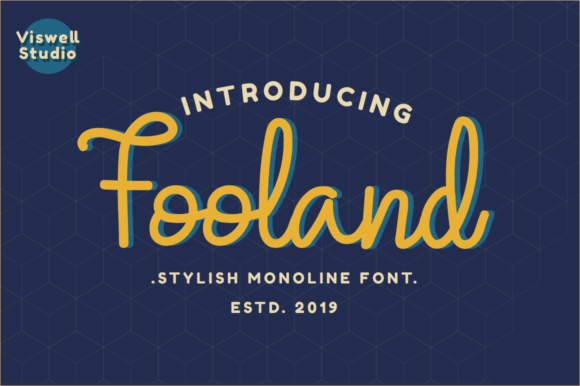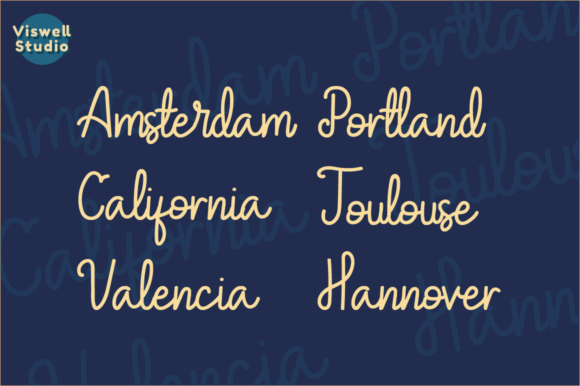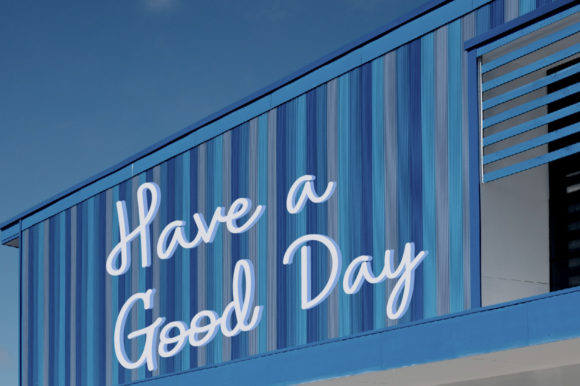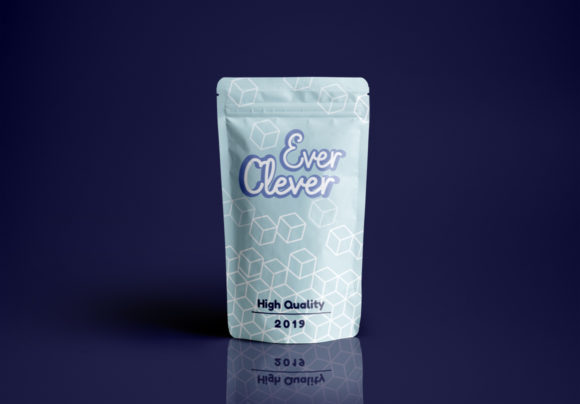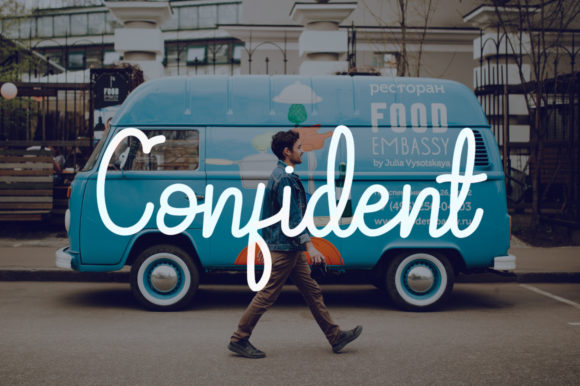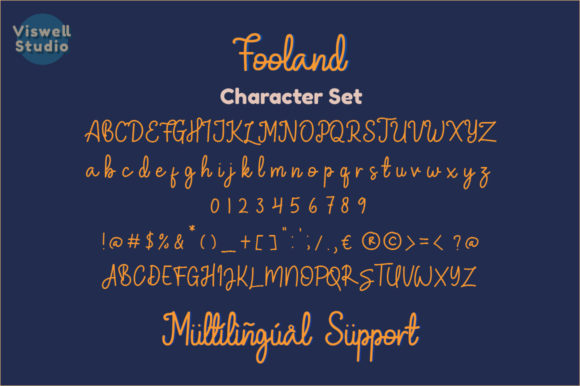
HomeScript FontsFooland Font Script Fonts Fooland Font FacebookXPinterestWhatsApp Fooland Font Poster 2 Fooland Font Poster 3 Fooland Font Poster 4 Fooland Font Poster 5 Fooland Font Poster 6 About Fooland Font Fooland is a beautiful monoline script font with friendly curves. Get motivated by its contemporary coolness! DOWNLOAD ON CREATIVE FABRICAThis font is sold and delivered by Creative Fabrica. Font Canyon may earn a commission if you buy through this link. People also explored Daylena Font Angelica Font Tangiang Font Gitoh Font Hello Rainbow Font Freyatina Pelgona Font Skeleton Font Hello Rainbow Font Anjara Font 363 0 TagsFooland Font Previous articleAnyhow FontNext articlePine Script Font LEAVE A REPLY Cancel reply Comment: Please enter your comment! Name:* Please enter your name here Email:* You have entered an incorrect email address! Please enter your email address here Website: Save my name, email, and website in this browser for the next time I comment. Personal Use Free City Tour Personal Use Free Read more about this font Anti Personal Use Free Read more about this font Anders Personal Use Free Read more about this font Peristiwa Font Personal Use Free Read more about this font BLOG The 10 Best Handwriting Fonts to Add Personality to Your Designs 10 of the Best Handwriting Fonts for Adding Personality to Your Designs There will undoubtedly be no other better choice than handwriting fonts to give... Using Fonts in Digital Marketing: Tips to Strengthen Your Brand Identity Free Fonts Risk: Why Free Fonts Can Be Dangerous for Designers Free vs Paid Fonts: Why Investing in Premium Fonts Is Worth It